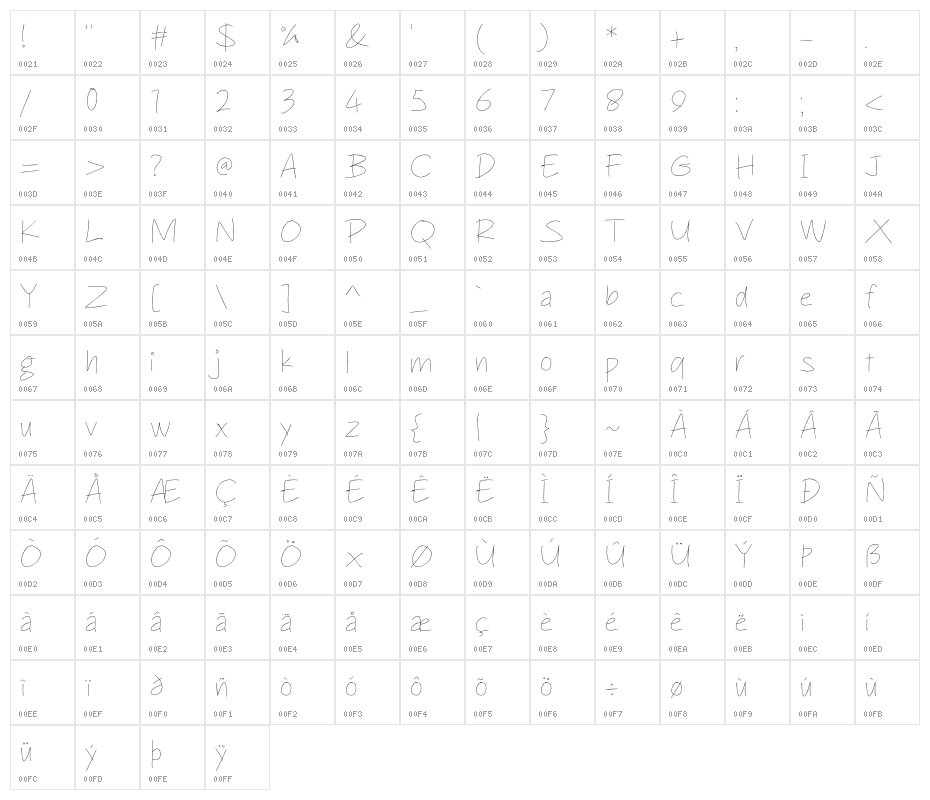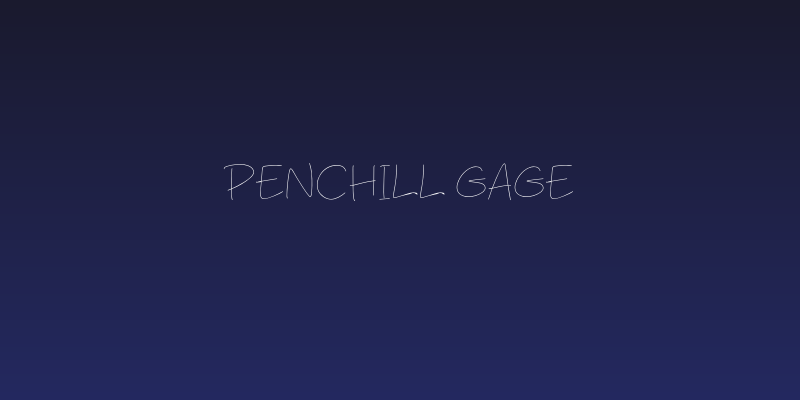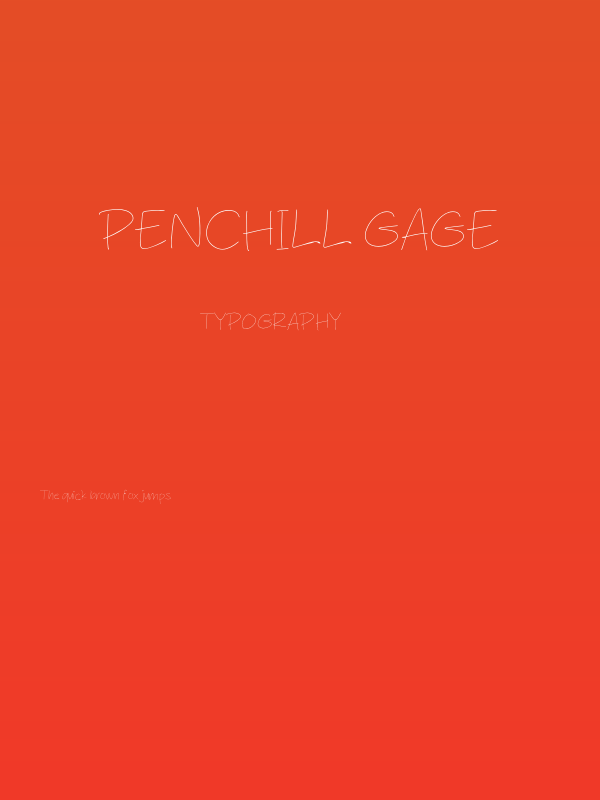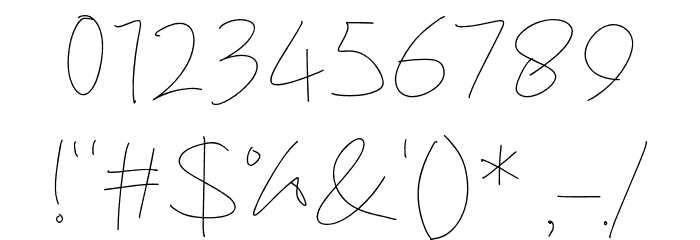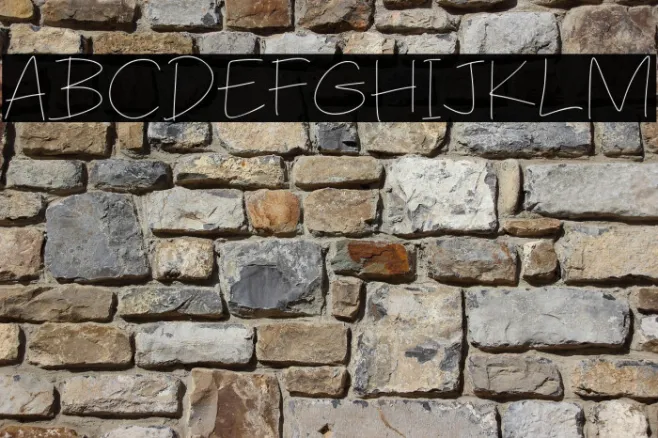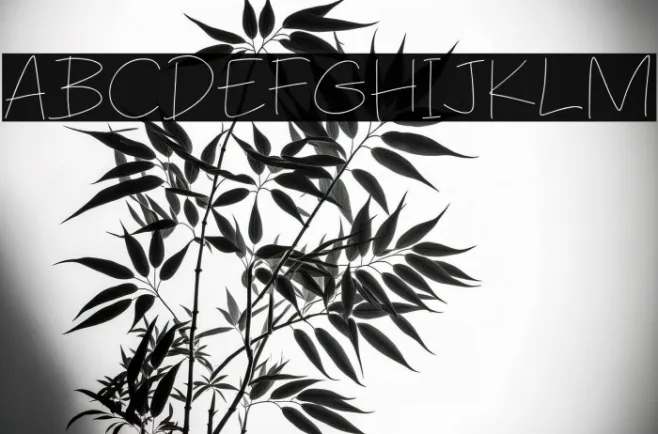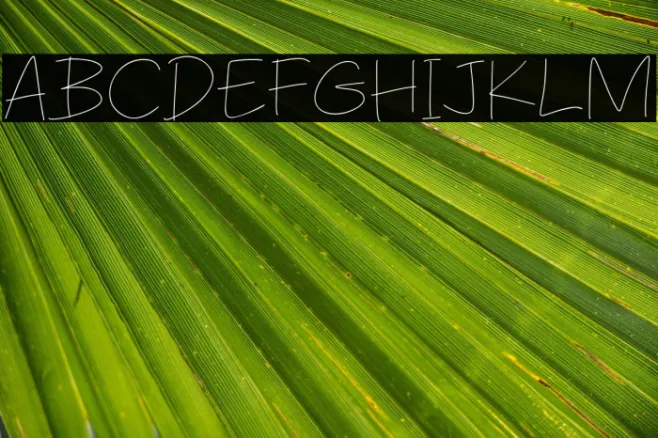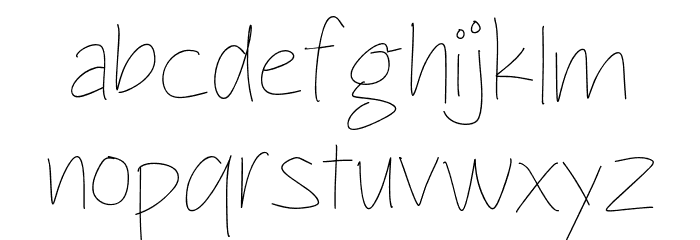
Penchill Gage Font
Penchill Gage Description
This font exhibits a casual, handwritten style with a playful and informal appearance. The characters are thin and slightly irregular, giving it a personal touch that mimics natural handwriting. The uppercase letters are tall and slender, while the lowercase letters maintain a consistent flow with rounded edges. Numbers and special characters follow the same handwritten aesthetic, adding to the cohesive look. The overall design is light and airy, making it suitable for projects that require a friendly and approachable feel.
| Overall Style | Casual |
| Use Case | Logos, Headlines, Informal text |
| Proposed Projects | Ideal for personal notes, greeting cards, informal invitations, and creative projects that require a personal touch. |